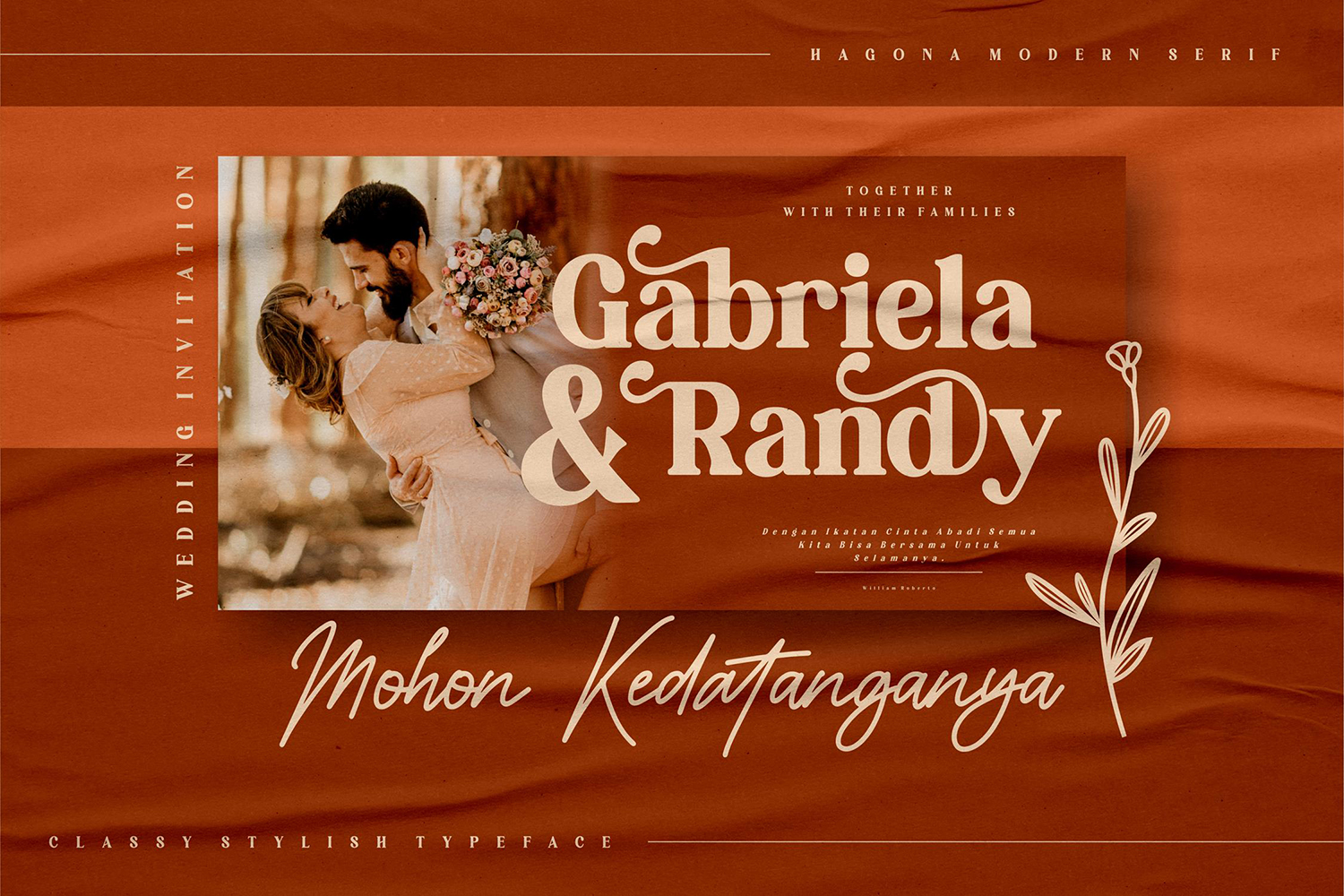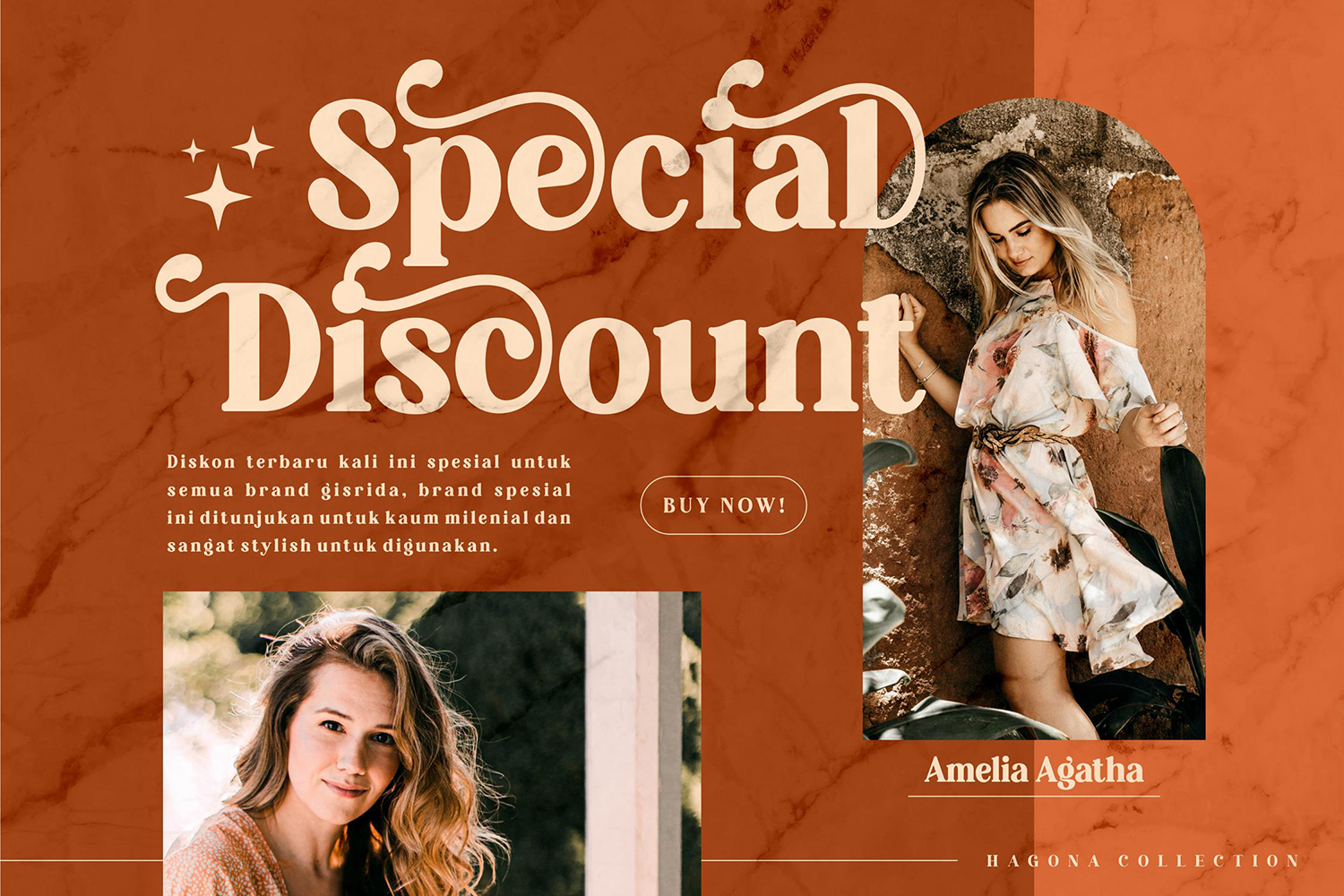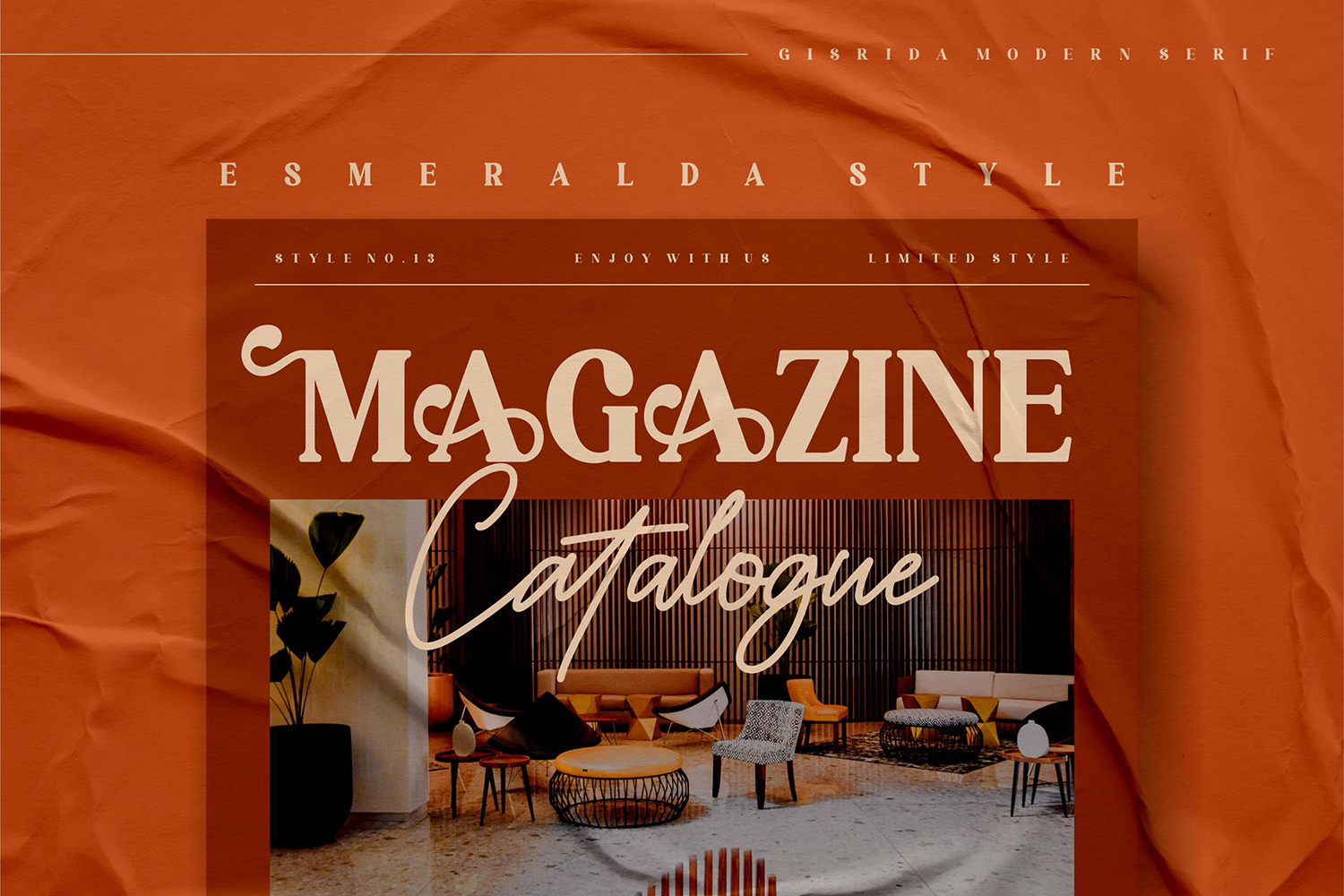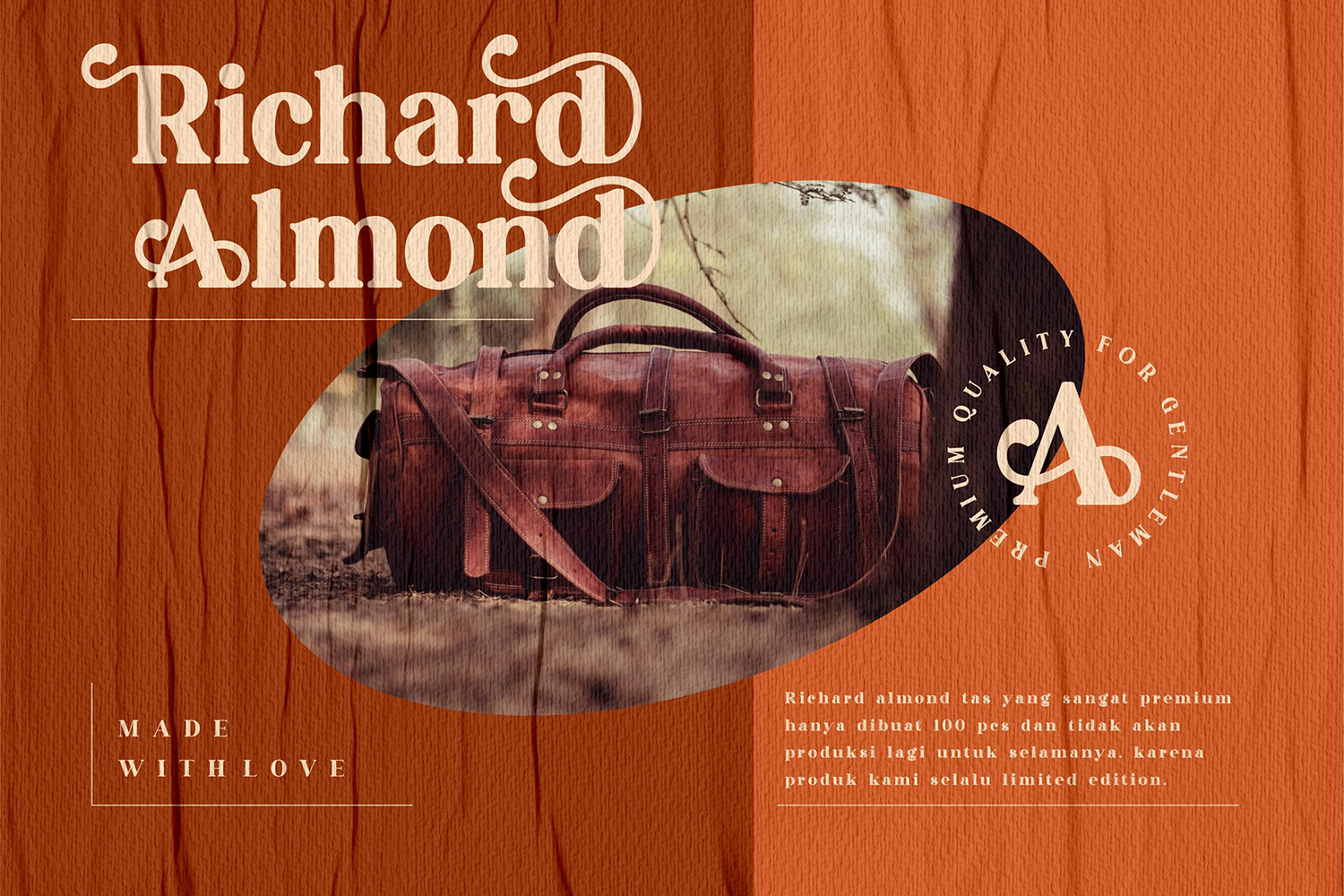
Hagona Classy Free Font
Hagona Classy Free Font is a bold, stylish and thick lettered serif font. This free typeface was designed by a talented Storytype Studio. If you like it don’t forget to check out the full version.